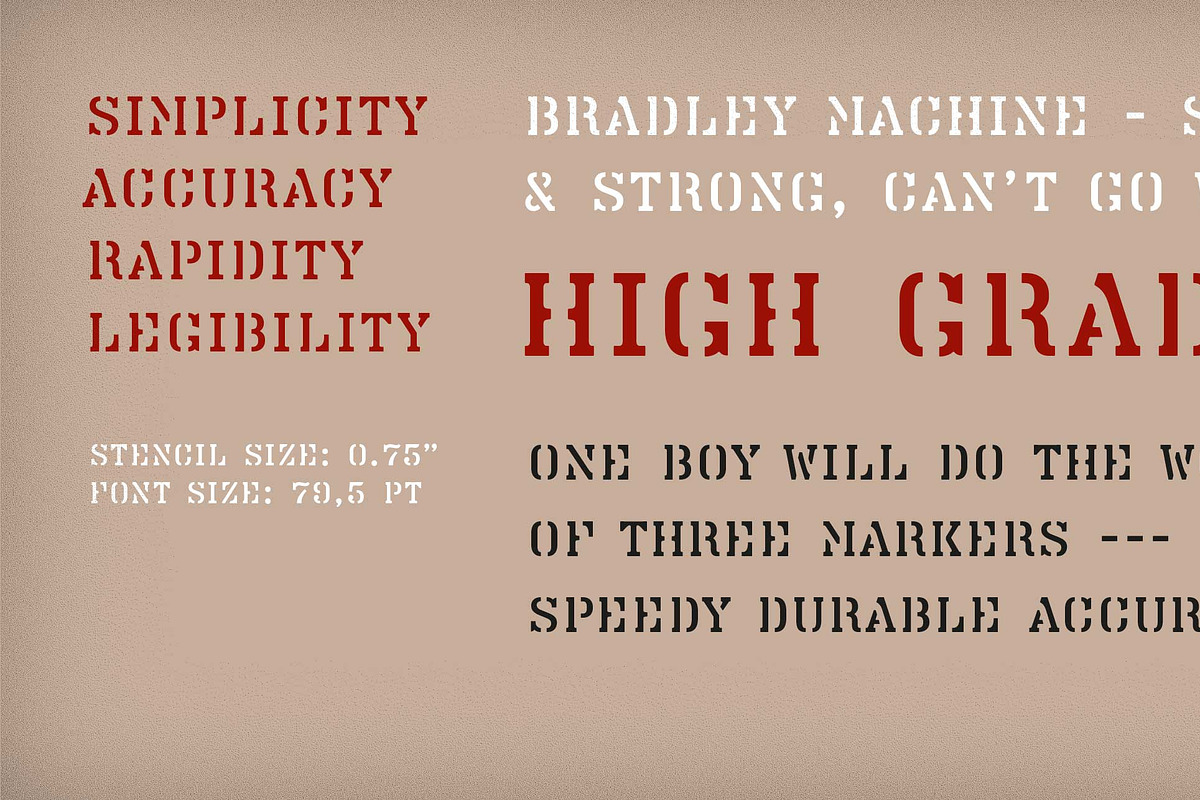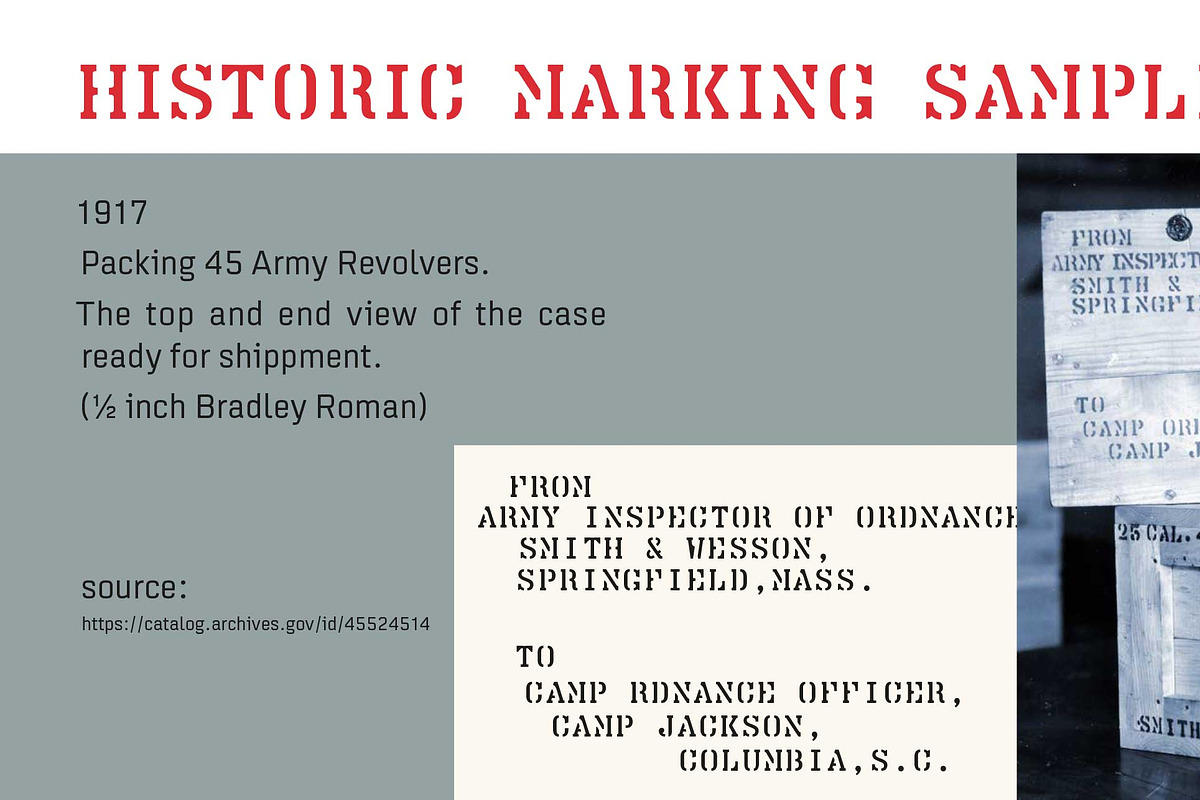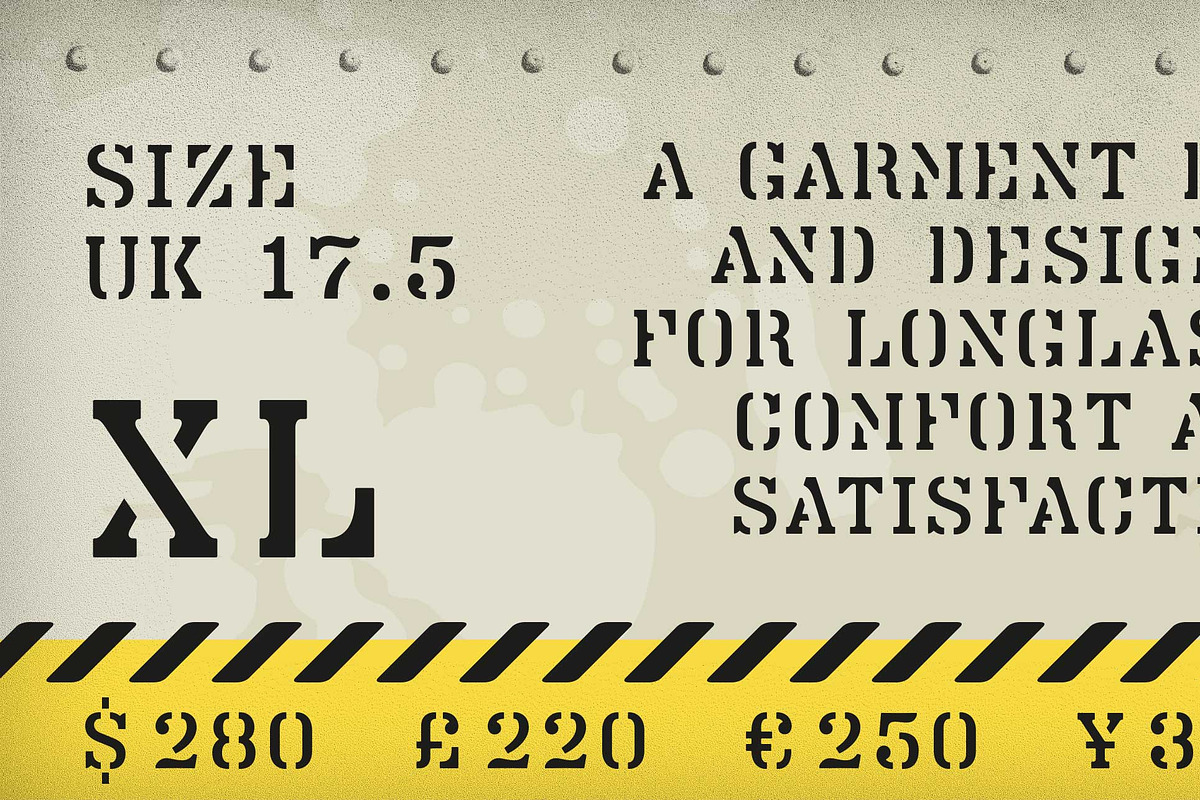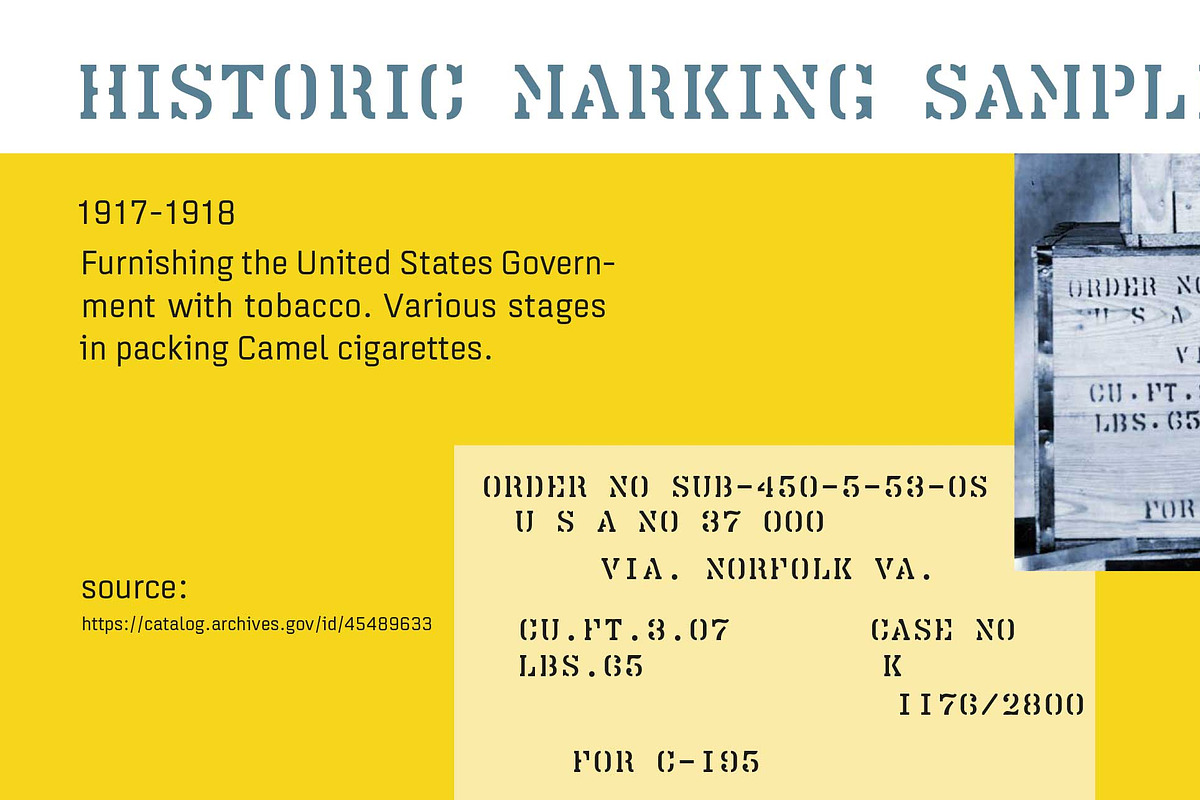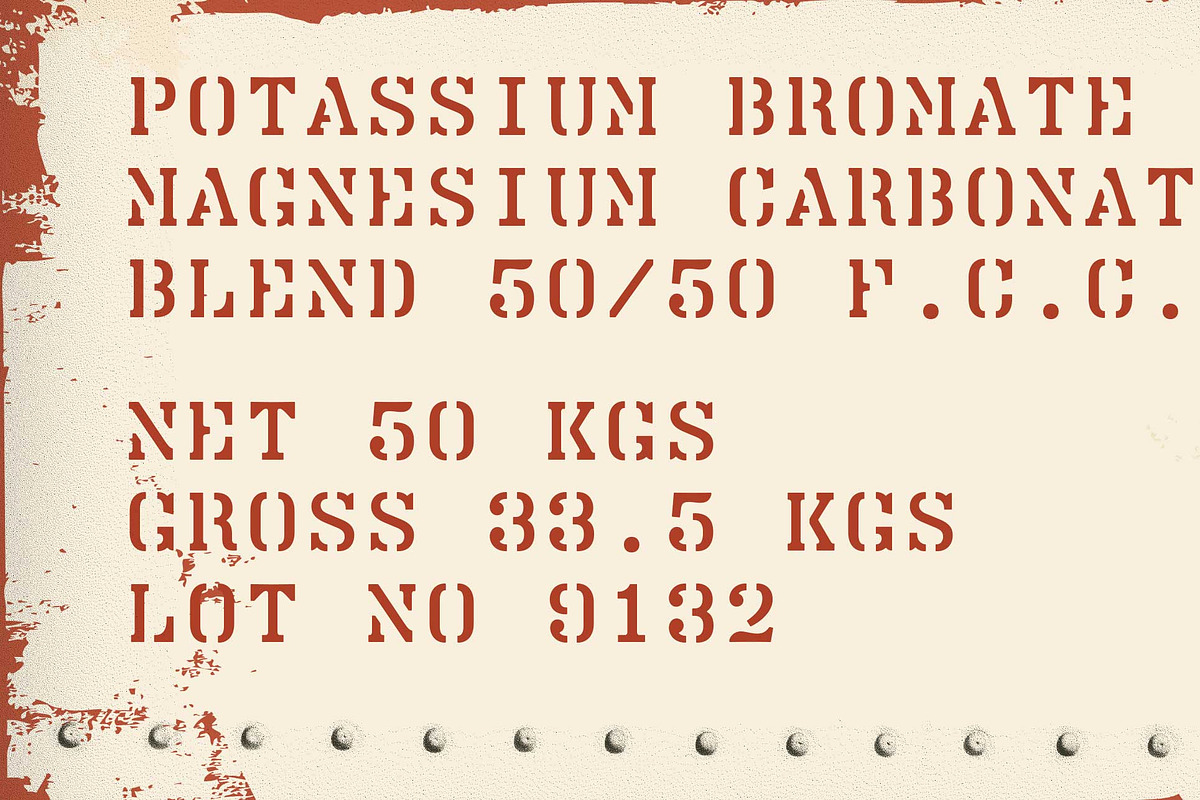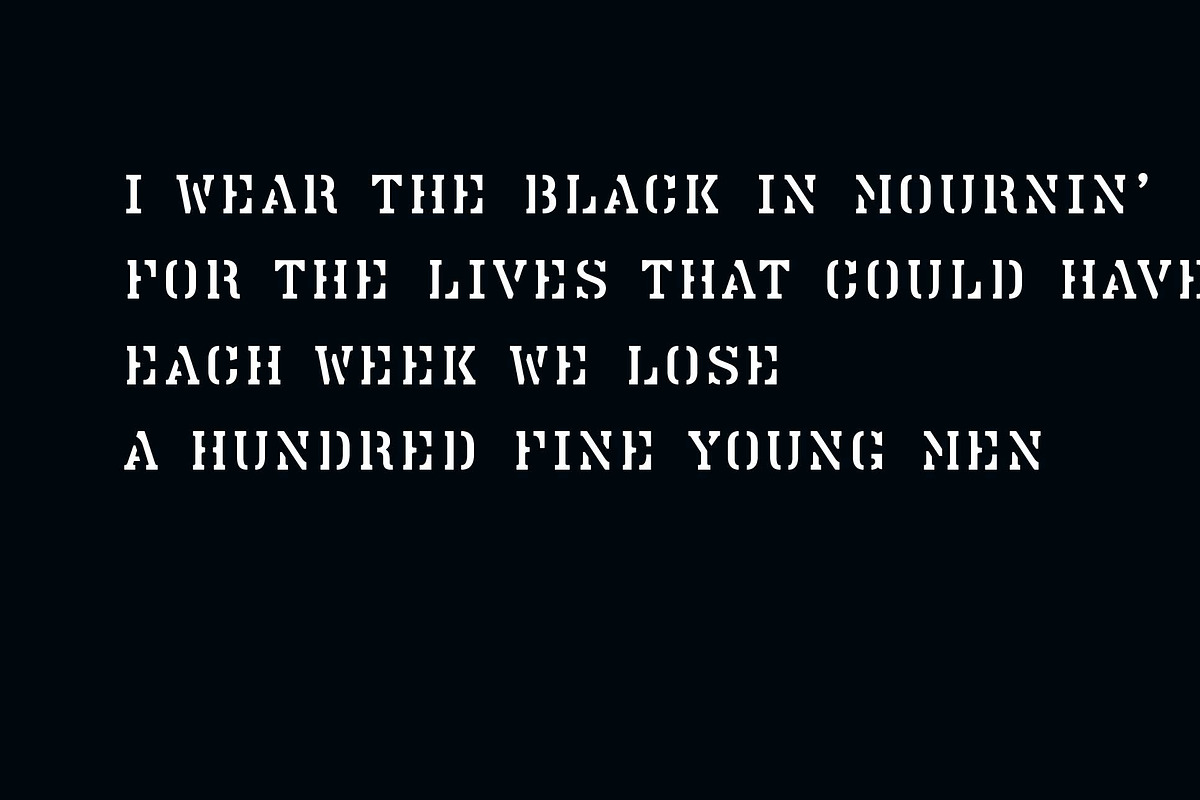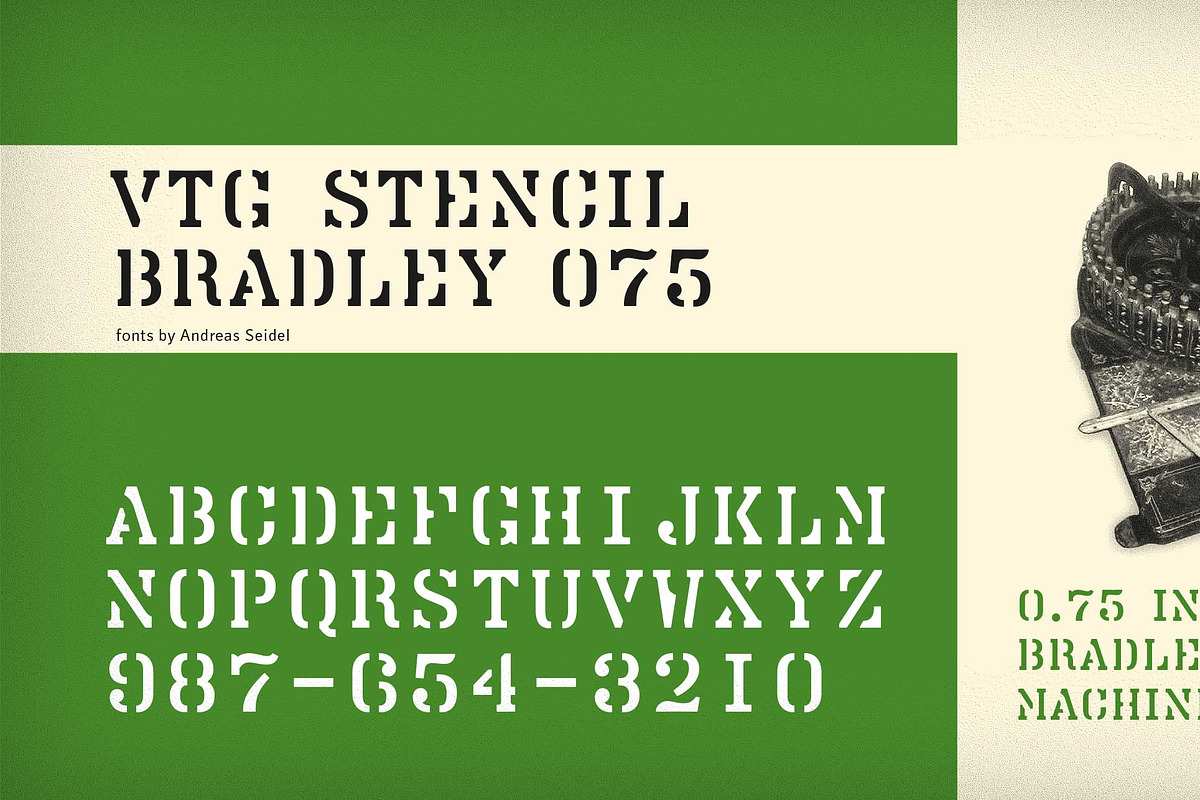
Vtg Stencil Bradley 075
The Bradley stencil machine and the Bradley Stencil Machine Company were named after their inventor, Andrew Jackson Bradley. These fonts are based on the original 0.75-inch typeface used in the first Bradley stencil machines.